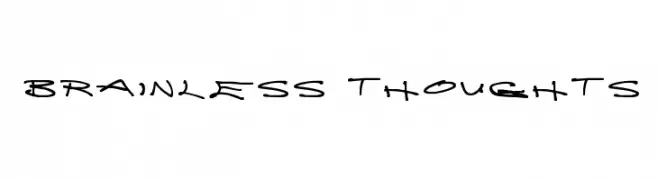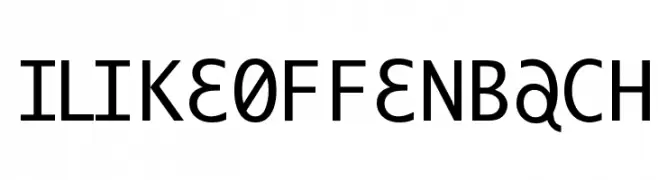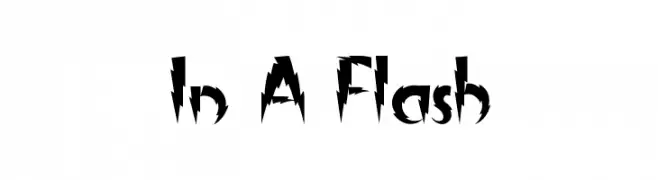
A bold, geometric font with strong, thick strokes and a distinctive character set.
A distressed, grunge-style font with bold, irregular letterforms and a textured appearance.
A bold, geometric font with an industrial and futuristic aesthetic.
A sleek, futuristic italic font with smooth lines and a dynamic appearance.
A dynamic, edgy handwritten font with irregular strokes and a chaotic appearance.